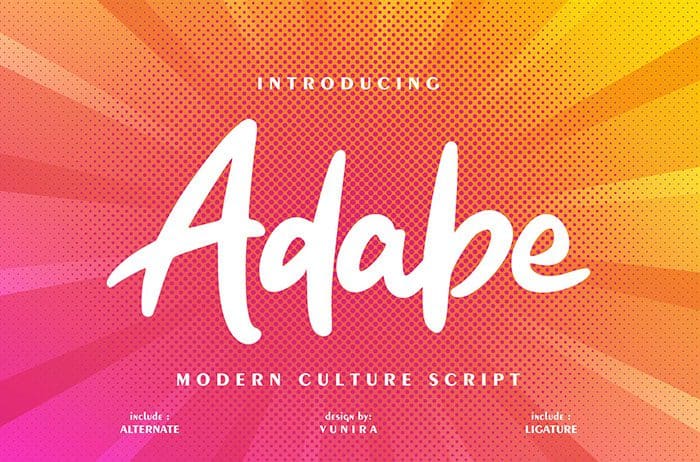
Adabe Script Font
Adabe is a trendy and bold handwritten Script Font. It features a nice flow, and as a result, it will match a variety of design ideas. Thanks to Vunira Studio for sharing this font! Take a look at this portfolio for more of his stunning fonts.